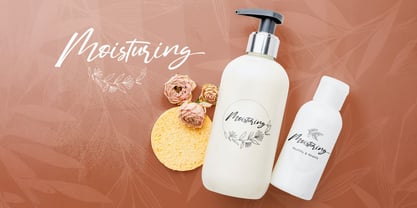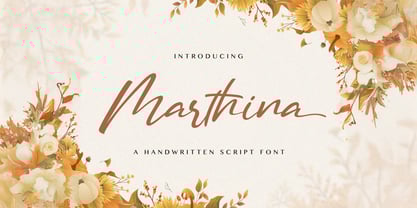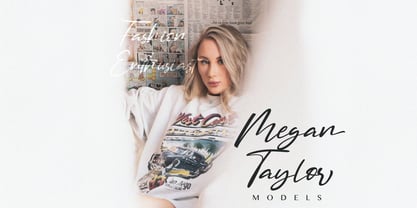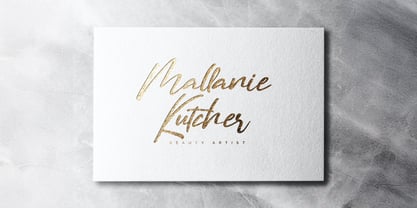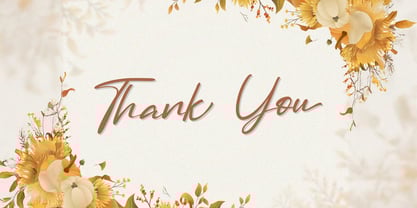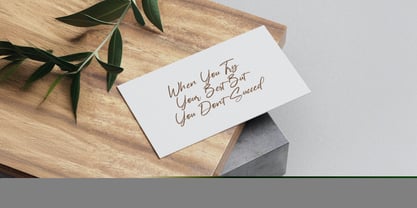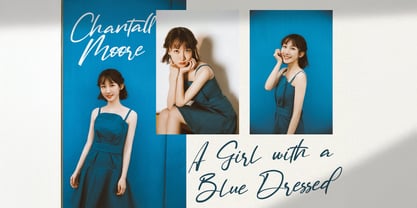
The Marthina Font Family was designed by Virgiawan Listanto and published by Stringlabs Creative Studio. Marthina contains 1 styles.
Martina is a charming and elegant handwritten font that brings a personal, sophisticated touch to your designs. With its smooth curves and balanced letterforms, this font effortlessly blends warmth and style, making it perfect for a wide range of creative projects.